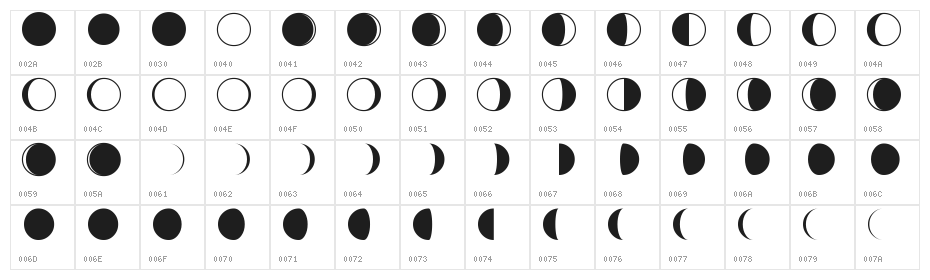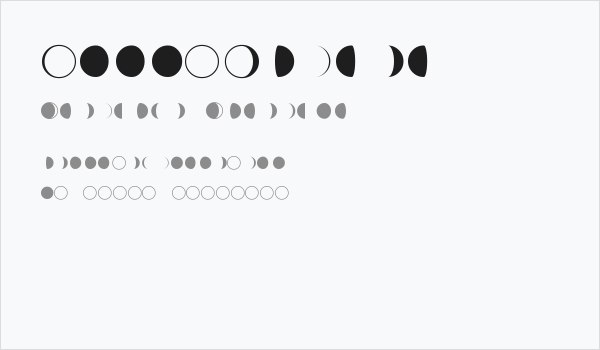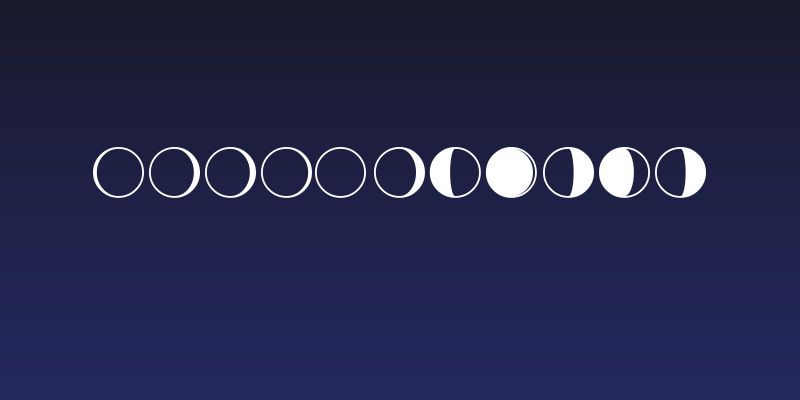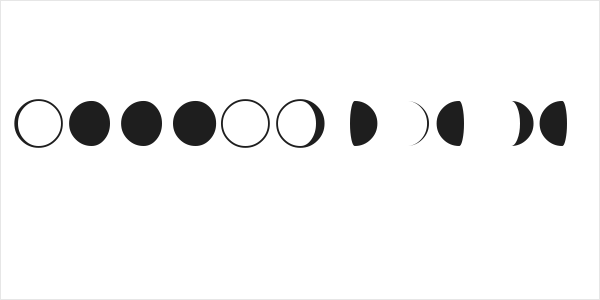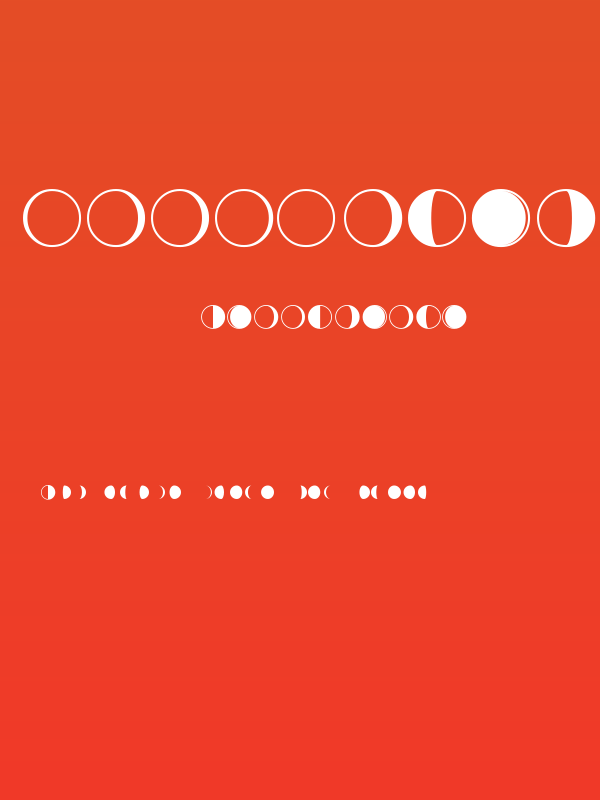
Moon-Phases Font
| Style général | Minimalistic, symbolic |
| Cas d'utilisation | Decorative elements, thematic designs, logos related to moon or night themes |
| Projets proposés | Astrology or astronomy themed designs, decorative borders, celestial event promotions, and artistic projects involving lunar imagery. |